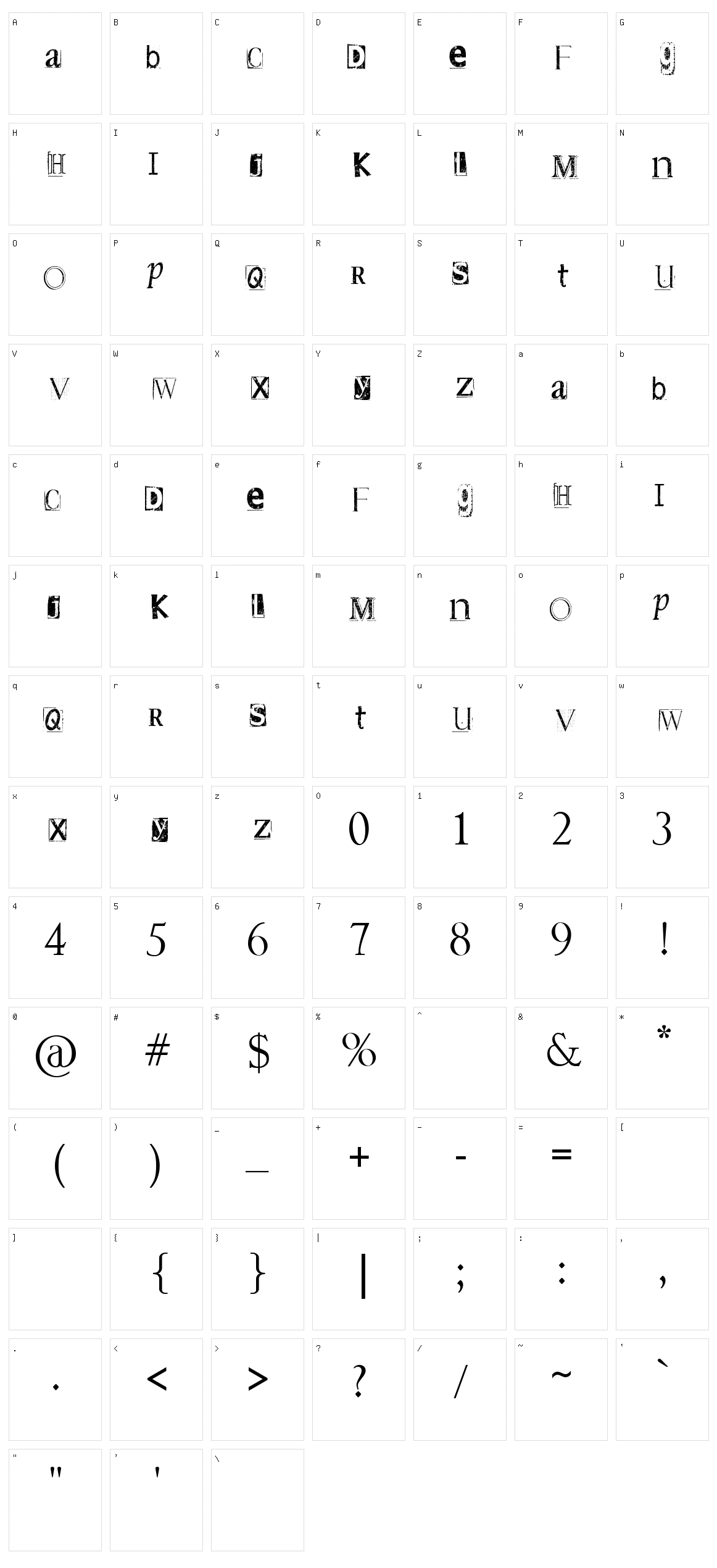
The free font DSnet Stamped is carefully designed by DS net, showcasing a thoughtful balance of creativity and usability and falls under the Eroded font style. When you download the ZIP file, it contains only 105.7 KB of font files, making it lightweight and quick to download. Please review the license details below to understand permitted usage and distribution rights. If license information is not available, we recommend using this font for personal projects only or contacting the author directly for commercial usage permissions.